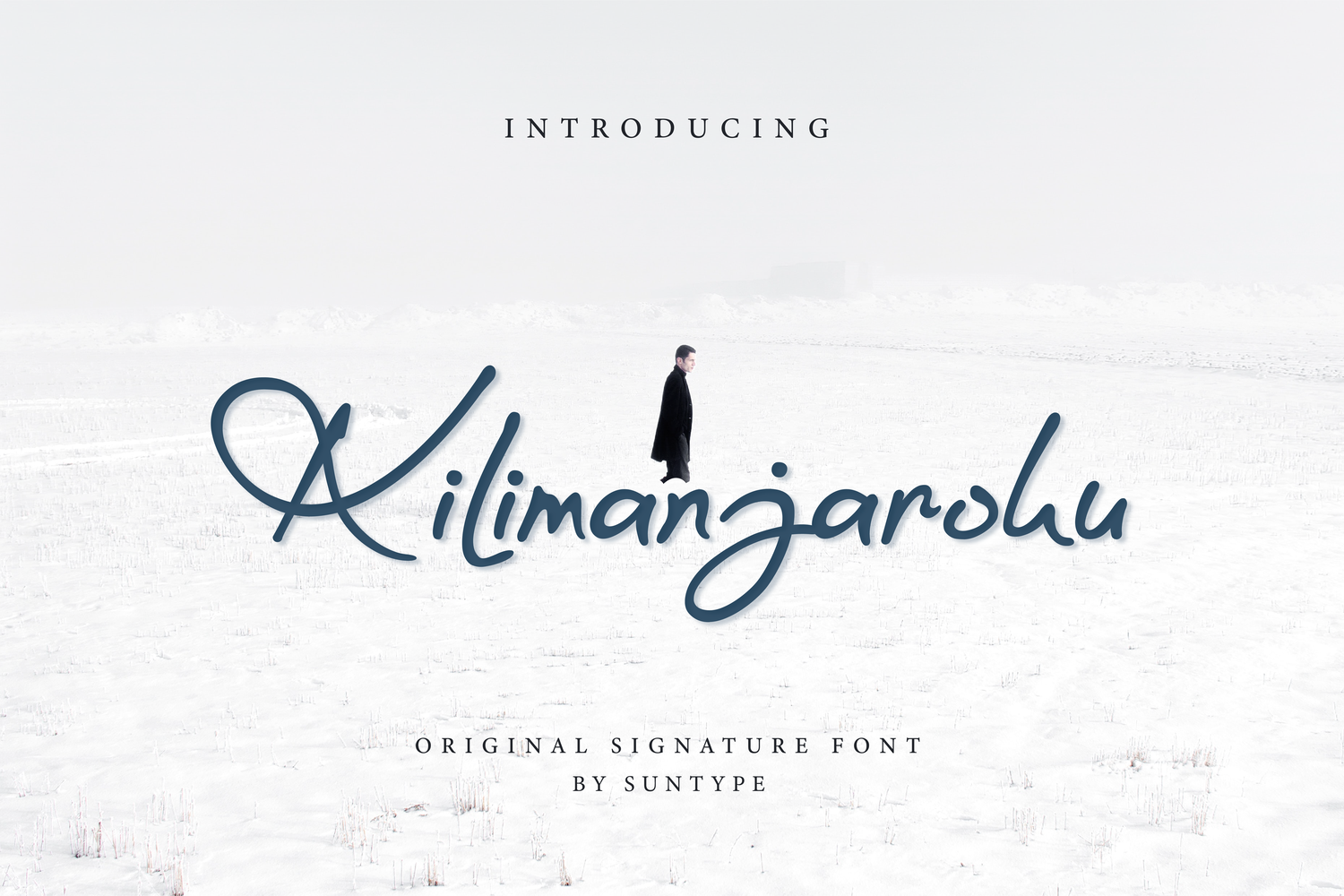
Kilimanjaroku | Handwritten Font
This is a signature font made with an elegant touch. This font includes uppercase, lowercase, numeric, punctuation and multilingual. Great for weddings, invitation cards, captions, etc. Thanks for checking out my shop, and feel free to get in touch! suntype07@gmail.com
- Standart alphabet (lowercase, uppercase and number)